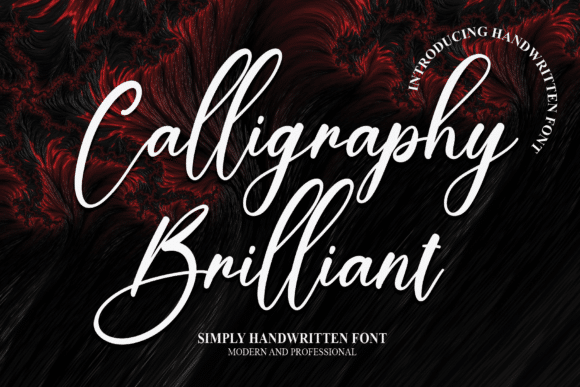
Calligraphy Brilliant is a fashionable and delicate script font. It is suitable for any projects such as: logos, branding projects, label, photography, watermark, special events, and all your other lovely projects that need a beautiful script taste.